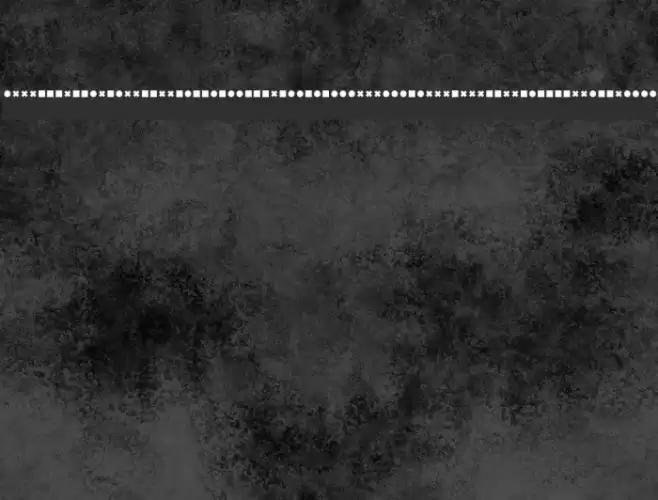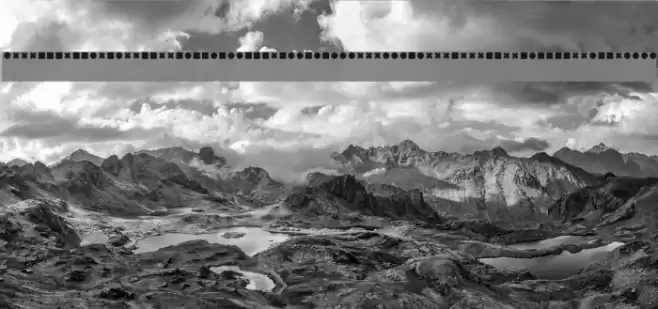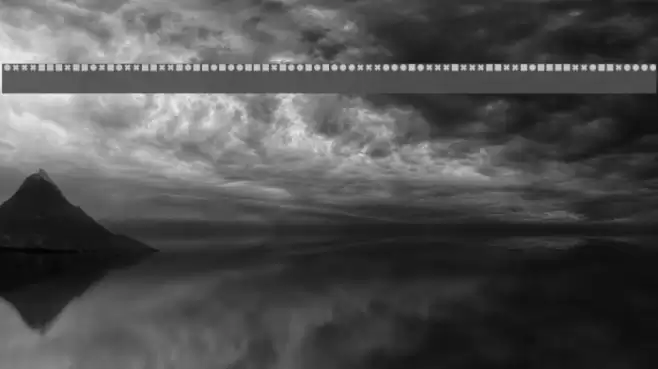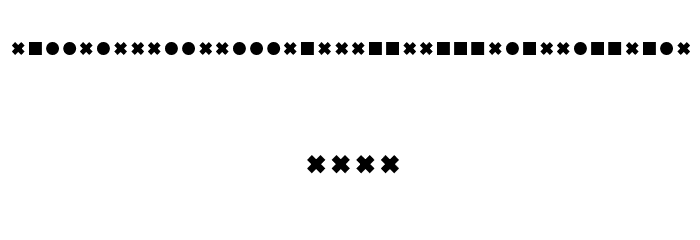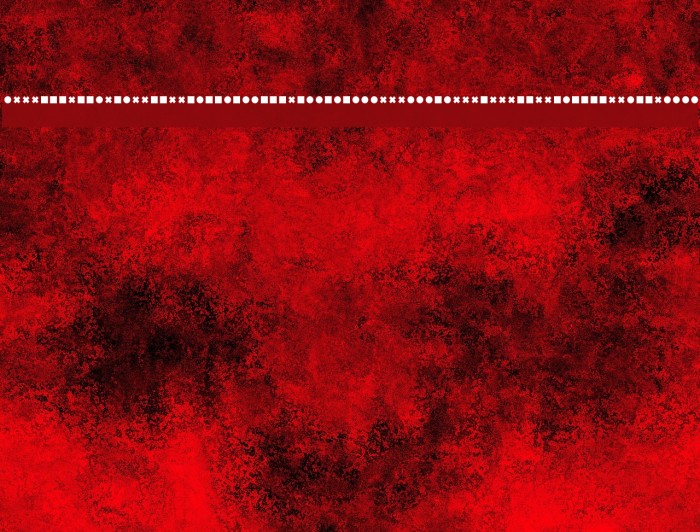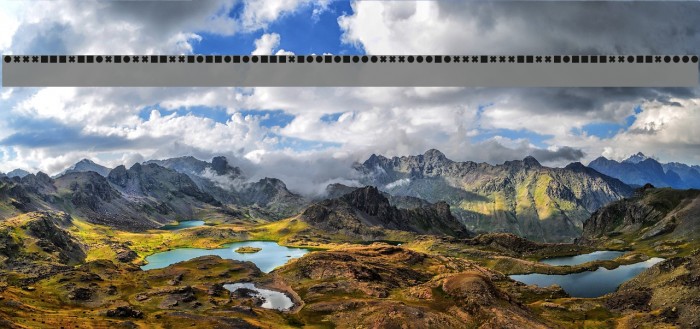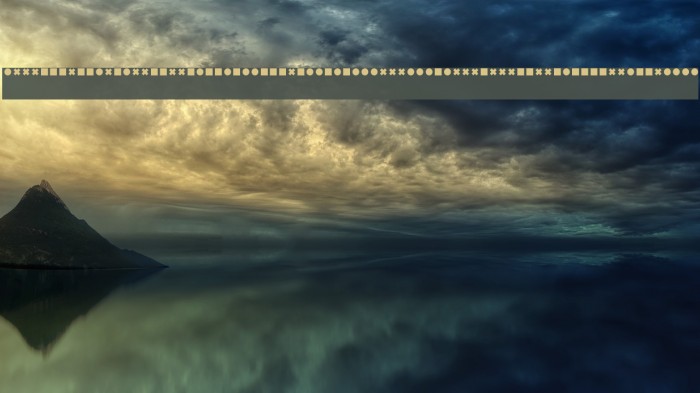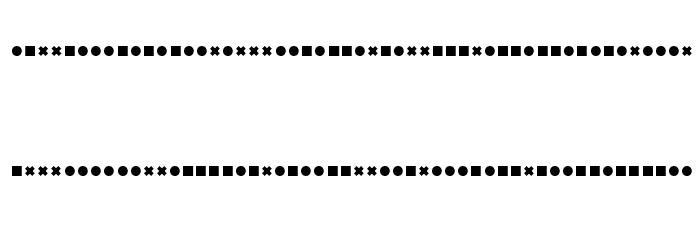
EightySixSeventyTwo Font
EightySixSeventyTwo Description
This is not a valid font. The image appears to contain a series of symbols or shapes arranged in a pattern, rather than a traditional typeface with recognizable alphanumeric characters. The design consists of various geometric forms such as circles, squares, and crosses, which do not correspond to standard letters or numbers.
The image does not depict a valid font from Uncategorized fonts.
- Font: EightySixSeventyTwo
- Proposed Projects: This design could be used for abstract art projects or as a decorative element in graphic design, but not for text-based applications.
- Overall Style: Abstract
- Use Case: Decorative elements, Abstract art